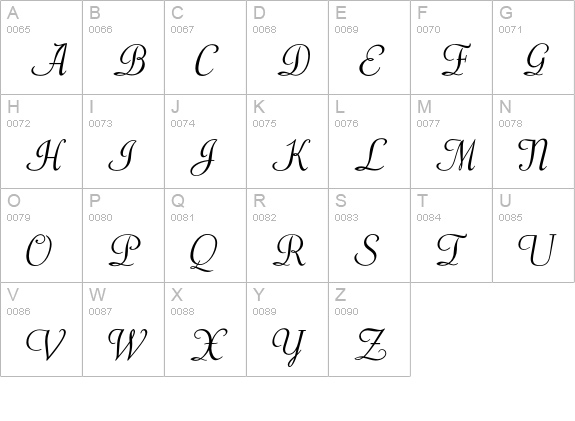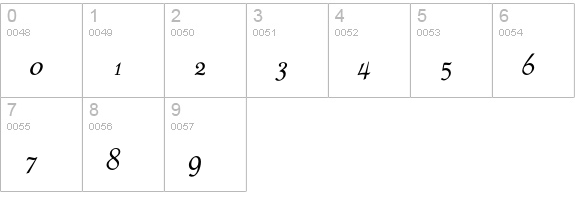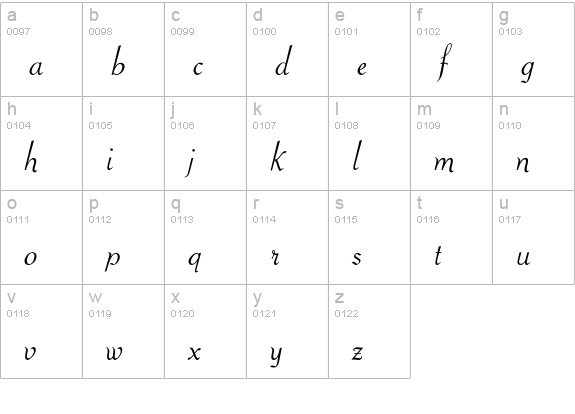
OPTIPiranesi-Italic Font Details
OPTIPiranesi-Italic is a distinctive, italic variant in the OPTIPiranesi typeface family \xE2\x80\x94 well suited to design and typography projects.
OPTIPiranesi-Italic is a stunning and elegant font that exudes sophistication and style. Its graceful italicized design adds a touch of refinement to any project, making it perfect for luxury branding, editorial designs, and more. The intricate details and flowing curves of this font will captivate your audience and leave a lasting impression. What makes OPTIPiranesi-Italic even more appealing is that it is available for free download at FontsMarket.com. This means you can easily access this beautiful font to enhance your creative projects without any cost. Don't miss out on the opportunity to elevate your designs with the timeless beauty of OPTIPiranesi-Italic. Download it now and let your creativity soar!